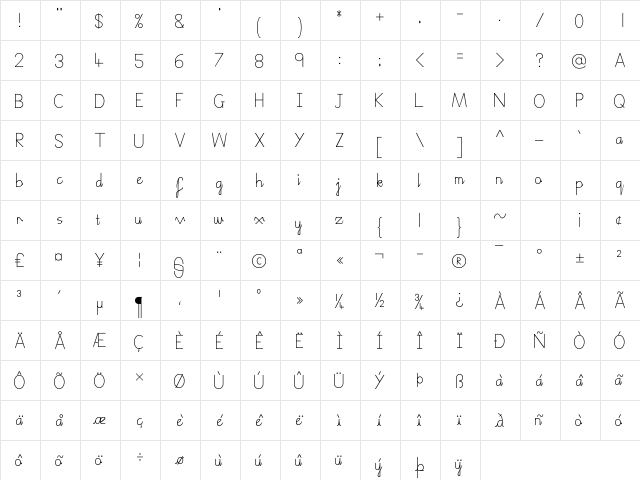
Boring Joined Regular
Design Context for Boring Joined Typeface
Boring Joined is a composed and adaptable typeface that performs quietly and consistently across a wide range of design contexts.